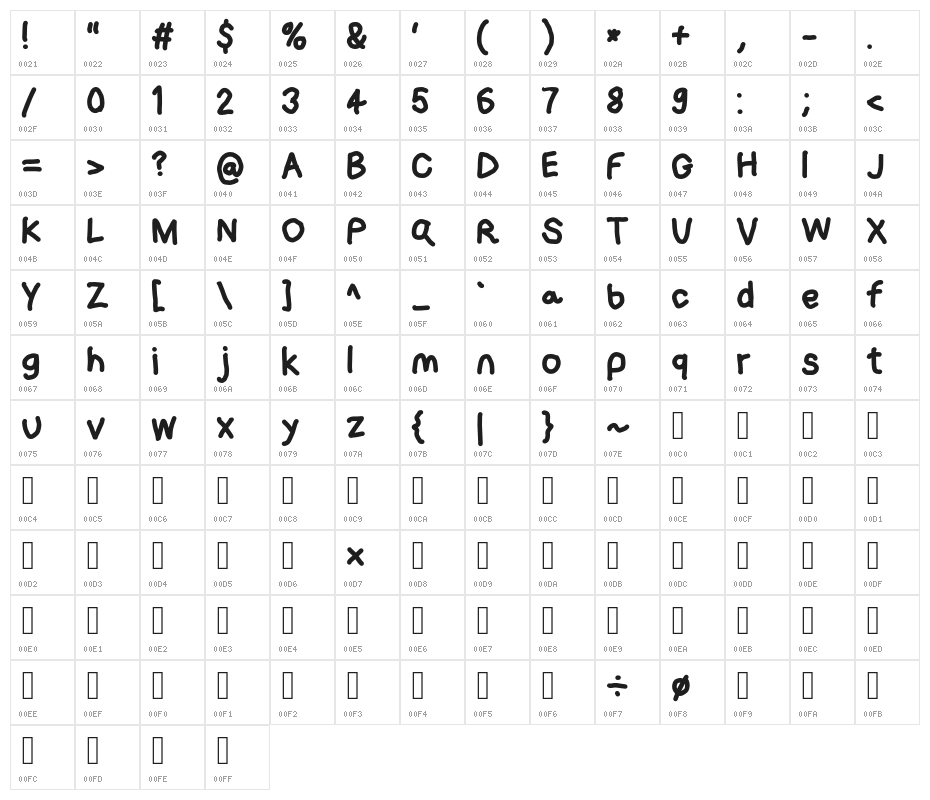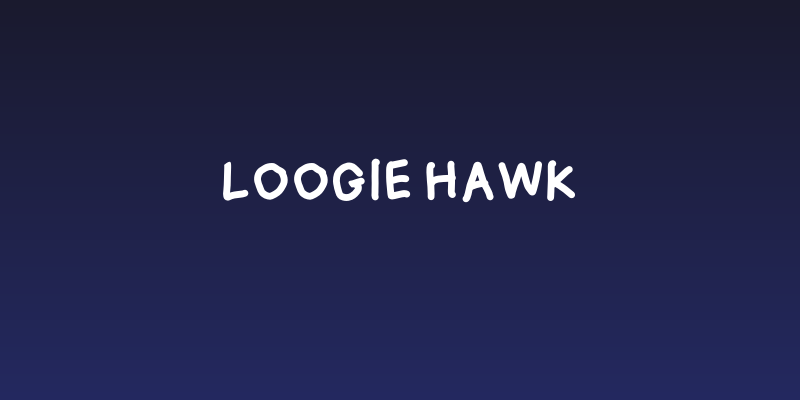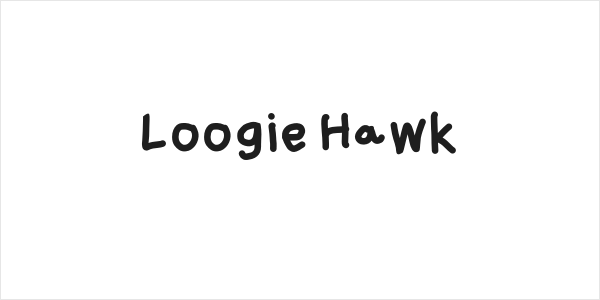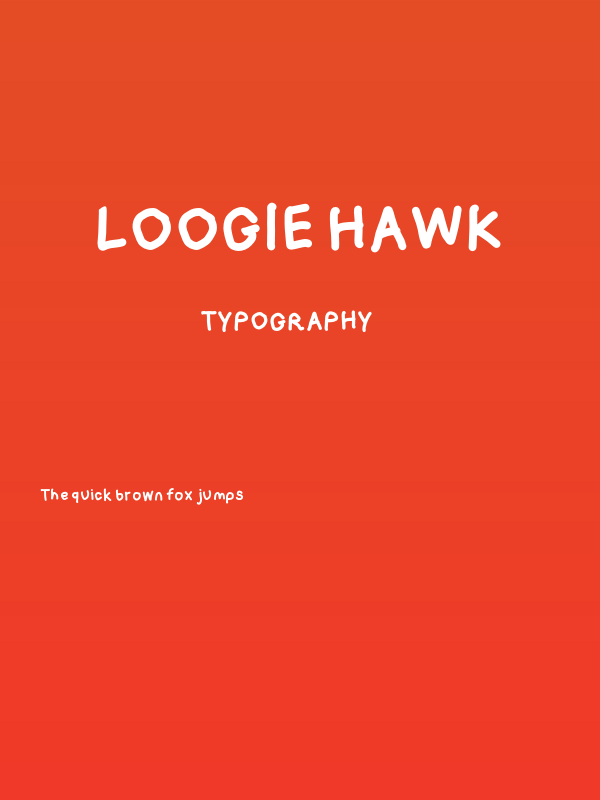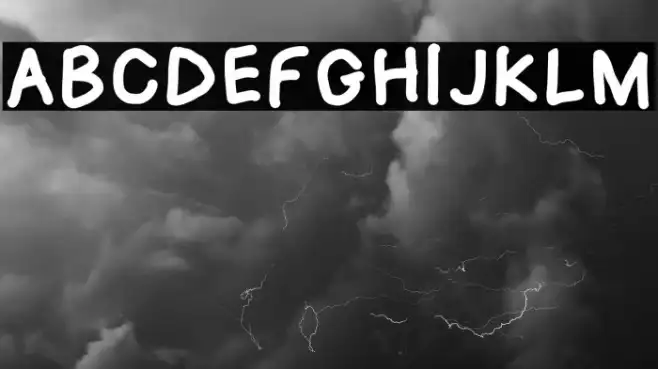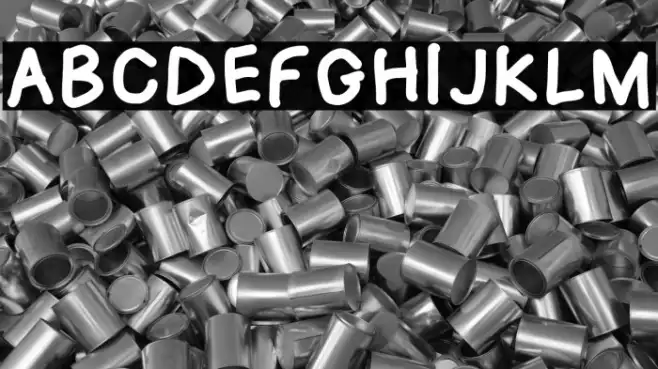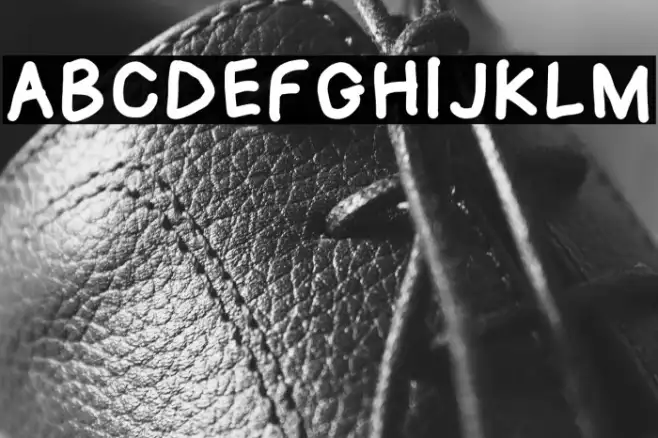
Loogie Hawk Font
Loogie Hawk Description
This playful and whimsical font features bold, rounded characters with a hand-drawn appearance. The letters are slightly irregular, adding a casual and friendly vibe. The uppercase and lowercase letters maintain a consistent style, with smooth curves and a uniform thickness throughout. Numbers and special characters are designed to match the playful aesthetic, making them suitable for informal and creative projects. The overall look is approachable and fun, perfect for designs that aim to convey a sense of joy and spontaneity.
| Use Case | Logos, Headlines, Informal Text |
| Proposed Projects | Ideal for children's books, playful branding, greeting cards, and casual event invitations. |